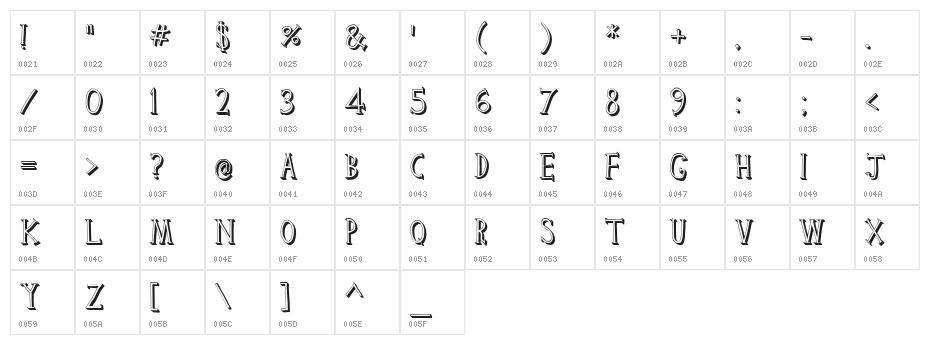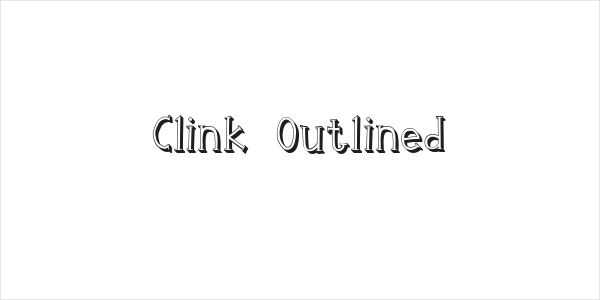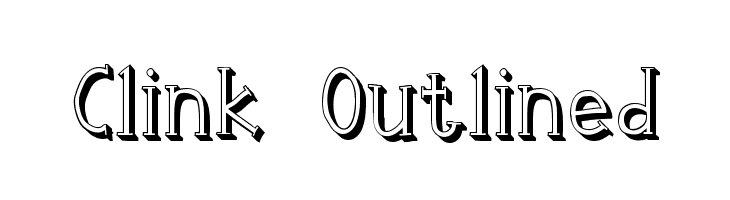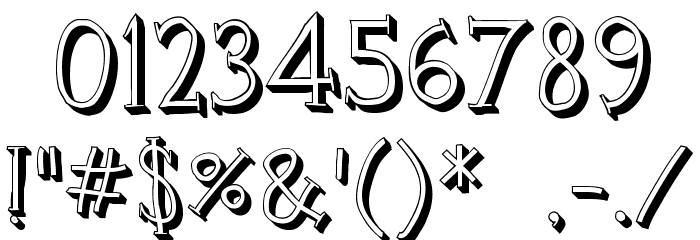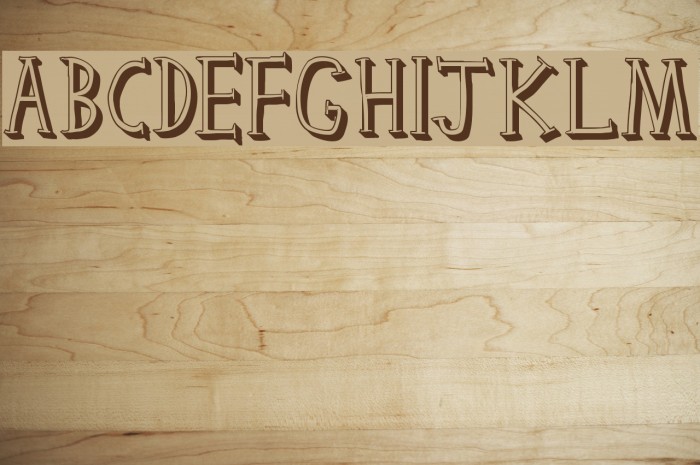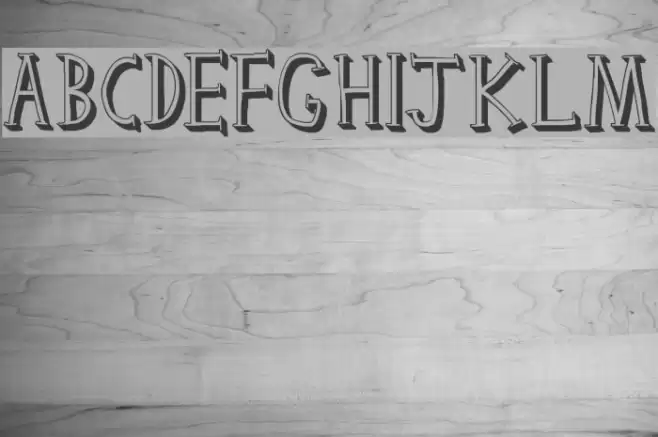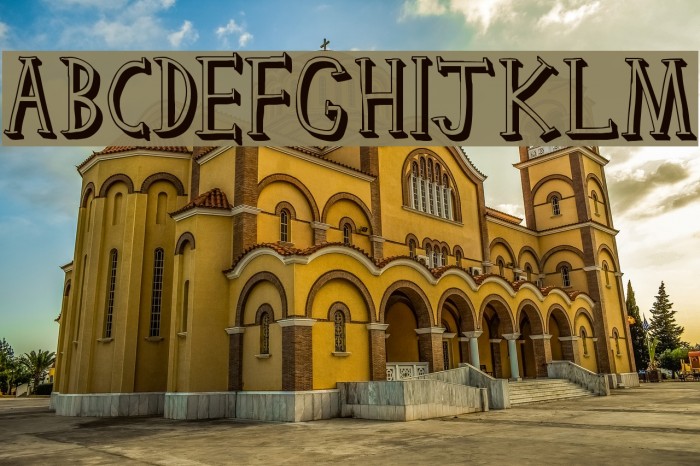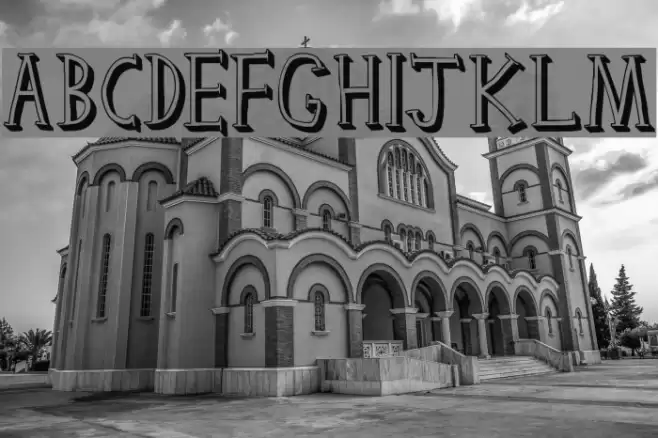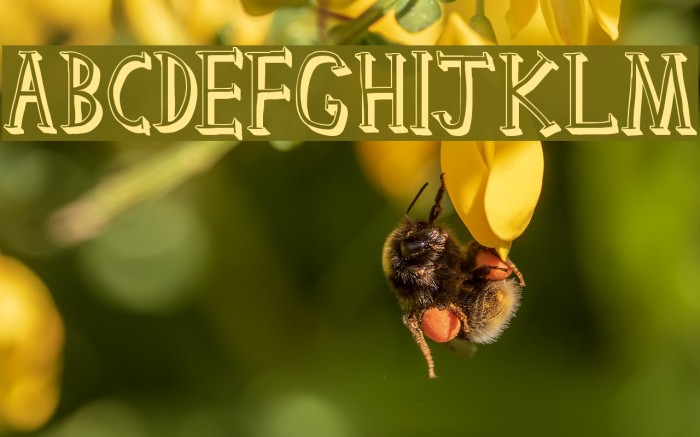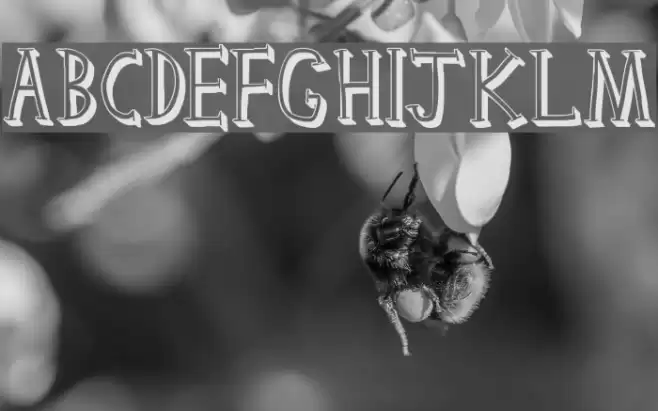
Clink Outlined Font
Clink Outlined Description
This font features a bold, outlined style with a distinct three-dimensional effect, giving it a striking and dynamic appearance. The characters are designed with a strong, angular structure, and the outlines create a shadow-like effect that adds depth. The uppercase and lowercase letters maintain a consistent style, with the uppercase being slightly more pronounced. Numbers and special characters follow the same outlined theme, ensuring uniformity across all glyphs. This font's unique design makes it ideal for projects that require a bold statement or a vintage touch.
| Overall Style | Vintage |
| Proposed Projects | Ideal for posters, logos, headlines, and any design needing a bold, vintage flair. |